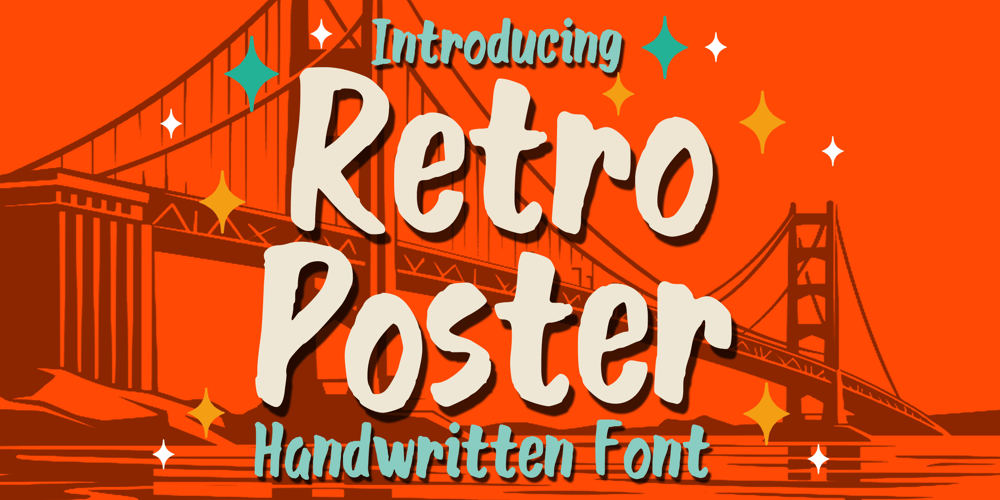
Retro Poster Font Family was designed by Gabriel Valentinus and published by Mvmet. Retro Poster contains 1 styles and family package options. Retro Poster is a playful and fun brush display font. It will elevate a wide range of design projects to the highest level. You can use this font for many design ideas such as stickers, t-shirt designs, amazing logo designs, magazine or book covers, comics, cartoon drawings, and many more. This font will add a super cool touch to your designs!